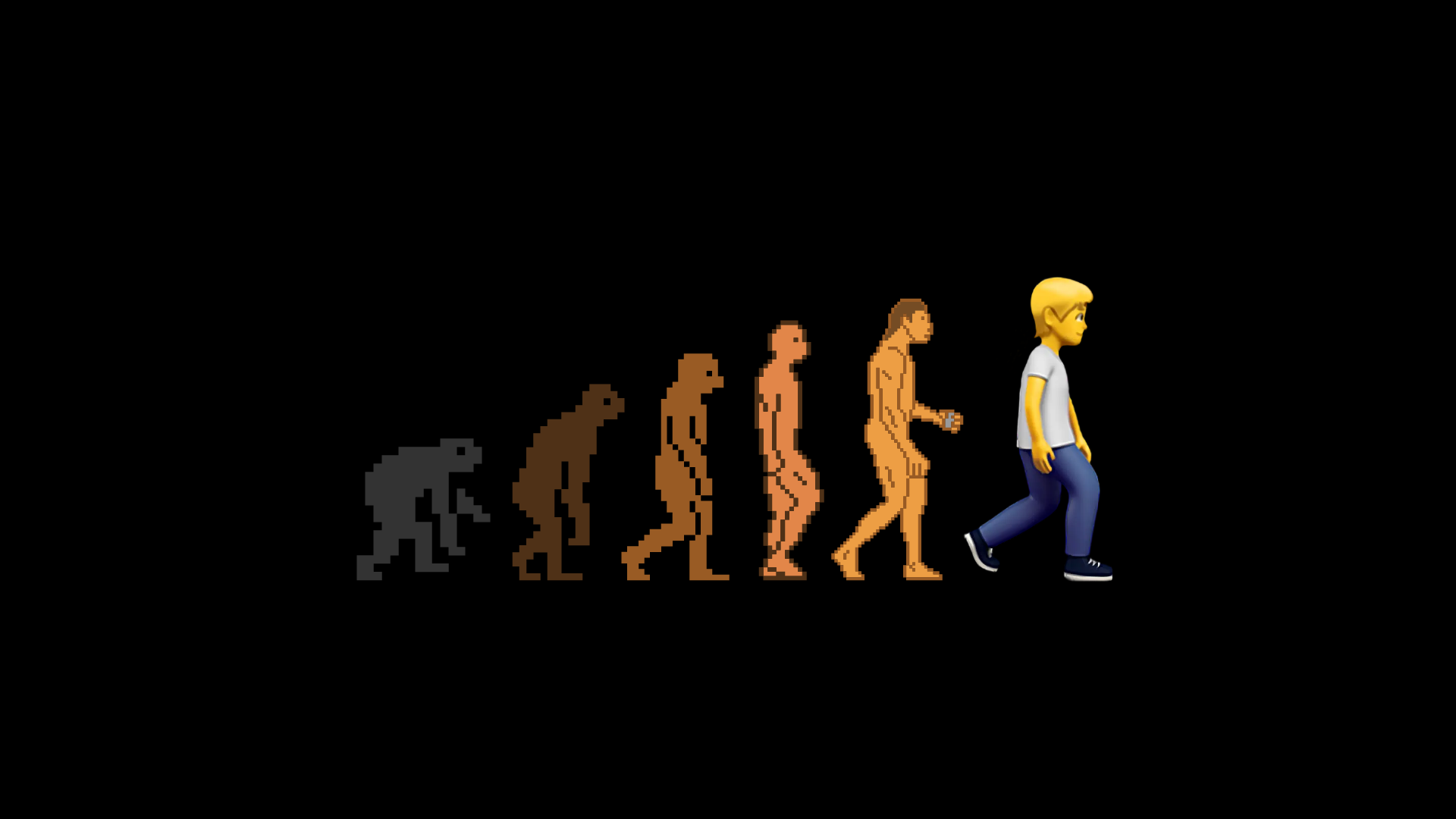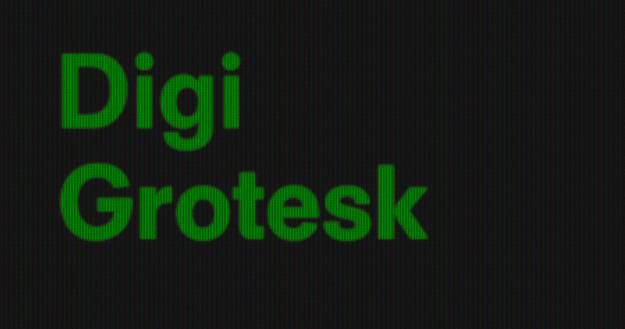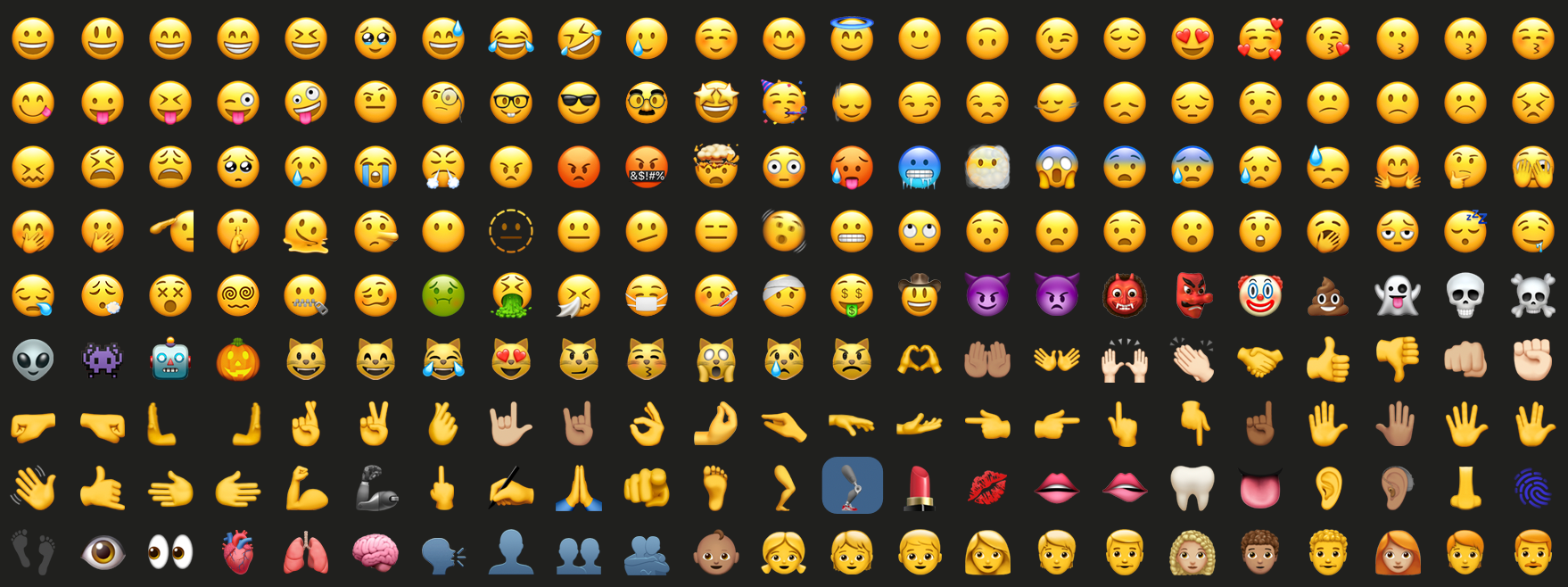
Can Fonts Have Color?
Traditional fonts consisted only of black and white—just outlines and strokes. To add color to text, you had to convert the font to outlines and manually apply colors. Adding gradients or multiple colors to individual characters required editing each one separately. Even this was only possible in certain applications that supported the feature. Most text editors could only work with black-and-white fonts. But now there's a way to express color directly through fonts themselves. Today, we'll explore "color fonts"—already deeply embedded in our daily lives though often unnoticed—and "emoji fonts," which make the most sophisticated use of color in typography.
The History of Fonts
A "color font" is exactly what it sounds like: a typeface with color built into the characters. While standard fonts contain only black outline data for each glyph, color fonts include either bitmap images or outline data with embedded color values for each character. This allows programs to easily display colored text without any conversion process. But you might wonder—isn't displaying text in colors other than black unusual? So why did color get incorporated into fonts in the first place?
To explain the background of color font development, we need to trace the history of fonts themselves. The fonts we use daily are collectively called "digital fonts"—essentially programs that output pre-designed glyphs when you input specific codes through devices like keyboards. Digital fonts were first developed in the 1970s, when personal computers (PCs) became commercially available. Over more than 50 years, digital fonts have evolved alongside computer technology to meet user needs.
In the early 1970s, personal computers had storage capacity measured in bytes, forcing all programs to be extremely compact. This practical constraint led to bitmap font technology being developed first—it could represent characters efficiently using pixel-based expressions with minimal file size. While bitmap fonts rendered in blocky pixels looked increasingly crude as resolutions increased, there were no alternatives at the time.
As computer technology advanced and storage capacity expanded dramatically, the font size constraint was resolved, and users increasingly demanded freedom from resolution limitations. After considerable effort by various companies to address bitmap fonts' shortcomings, vector font technology emerged, capable of rendering identical forms regardless of resolution scaling. Though output quality still varies depending on display resolution support, the advent of vector fonts largely solved resolution constraints. This technology is used in most fonts produced today.
The first digital bitmap font, Digi Grotesk
The Emergence of Emoji: The Beginning of Color Fonts
As personal mobile devices became widespread in the 1990s, demand grew for communication tools beyond simple text in constrained environments like email and text messaging. Against this backdrop, a new form of character called "emoji" emerged in Japan. Derived from the Japanese 絵文字 (e-moji, meaning picture + character), emoji are pictographic characters that visually represent emotions, concepts, and objects. Initially numbering only around 180, emoji grew increasingly popular and proliferated across various companies. However, without established standards, each company's emoji differed in variety and design, creating compatibility issues between devices that limited their use.
Despite these challenges, emoji's popularity blazed beyond Japan to become a global phenomenon. In response, major corporations like Google and Apple moved to standardize emoji, and their inclusion in Unicode—the international character standard—granted them recognition as official "characters." With international standards established and their role as characters formalized, emoji fonts naturally began to launch, allowing users to easily input emoji through their keyboards.
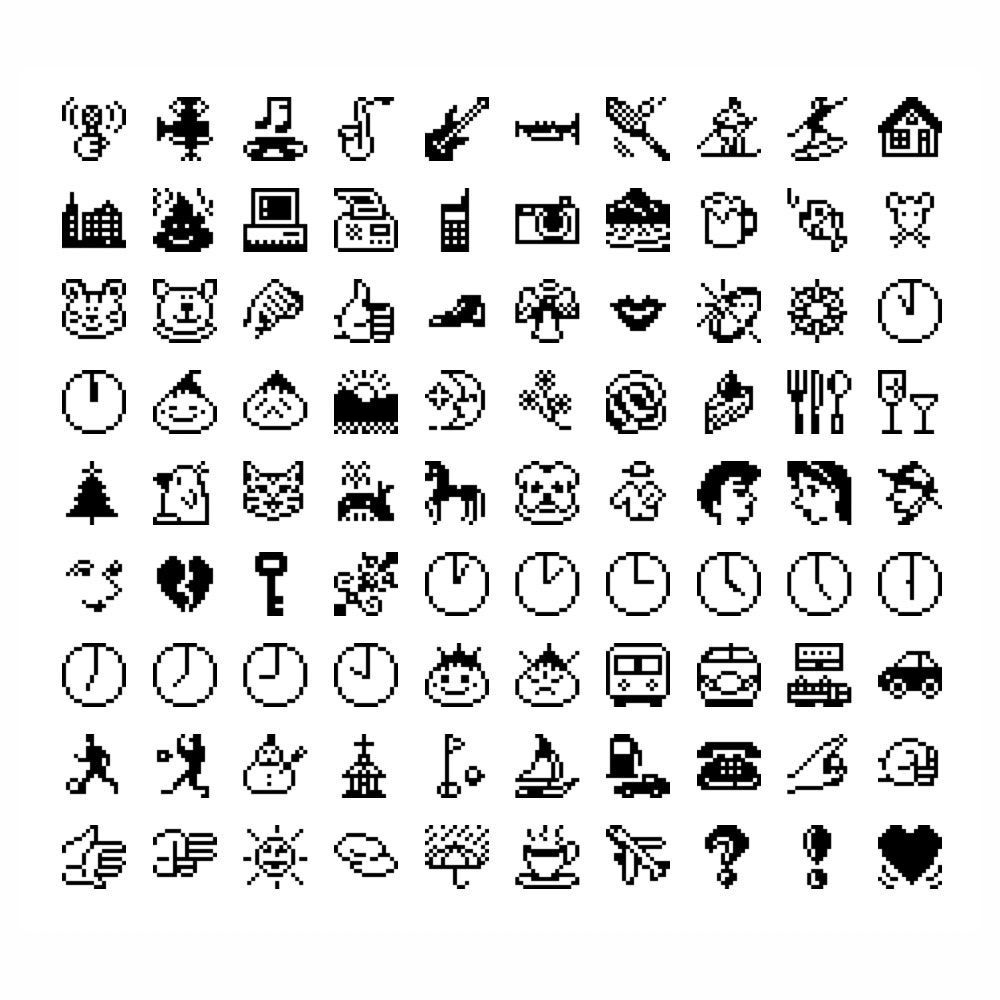
Early emoji created by SoftBank in 1997
As emoji users grew, a new problem emerged. Due to the font technology limitations of the time, which could only render in black, early emoji fonts were strictly monochrome. Before emoji, there had been little demand for color in text, and separate programs could convert fonts to single colors if needed. Practical concerns like file size and compatibility meant color data simply wasn't included in fonts. However, emoji required multiple colors within a single image to achieve nuanced expression—single-color rendering couldn't capture the necessary detail.
Ultimately, black-and-white fonts couldn't adequately represent the details of emoji like smiling faces, red hearts, food, and animals. Users wanted full-color emoji that could convey emotions more vividly and with greater variety. In response, multiple platform companies began developing "color font" technology to provide colored emoji. In 2011, Apple introduced the "Apple Color Emoji" font as the default for iPhone and MacBook, unveiling SBIX—the first color font format supporting bitmap images. This was followed by Microsoft's COLR/CPAL format in 2013 and Google's CBDT/CBLC format in 2014, with each company adopting different approaches to support color emoji fonts. Through this historical progression, color font technology came into the world.
Apple Color Emoji
Types of Color Fonts
Color font technology is currently in a transitional phase. With each company developing color font formats tailored to their own systems, compatibility issues across different platforms mean no color font yet works perfectly in all environments. Today, color fonts are produced in four formats depending on platform and purpose, with COLR and SVG being the most commonly used.